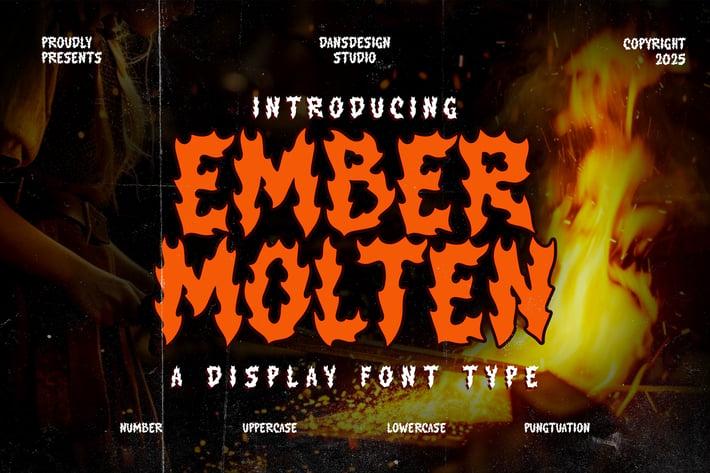
Ember Molten Fire Graffiti Metal Font
Ember Molten Fire Graffiti Metal Font is a distinct, highly detailed. Marker Display Font.
It would make a great choice for exquisite retro-urban designs, business branding, logos, Apparel designs, and more.